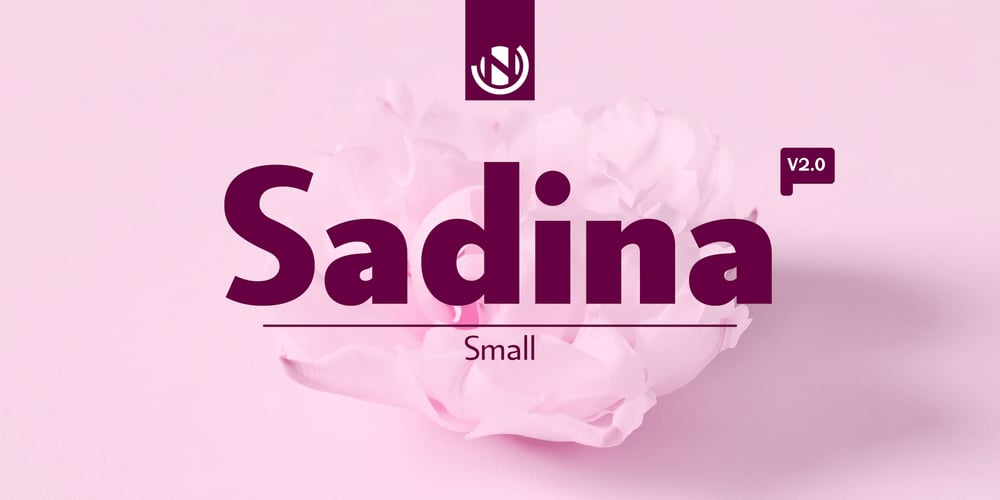
Sadina Small Font Family was designed by Yassine Abdi and published by NumidiaType. Sadina Small contains 14 styles and family package options. Sadina™ S is a small lowercase font for the family Sadina™, and all lowercase glyphs have been redesigned to a smaller size. The big difference in size between the capital and small letters gives a kind of beauty to the text or title, and since the Sadina font is designed with wide and clear letters, this difference gives a special aesthetic advantage, as the letter’s details appear even in the case of small texts.